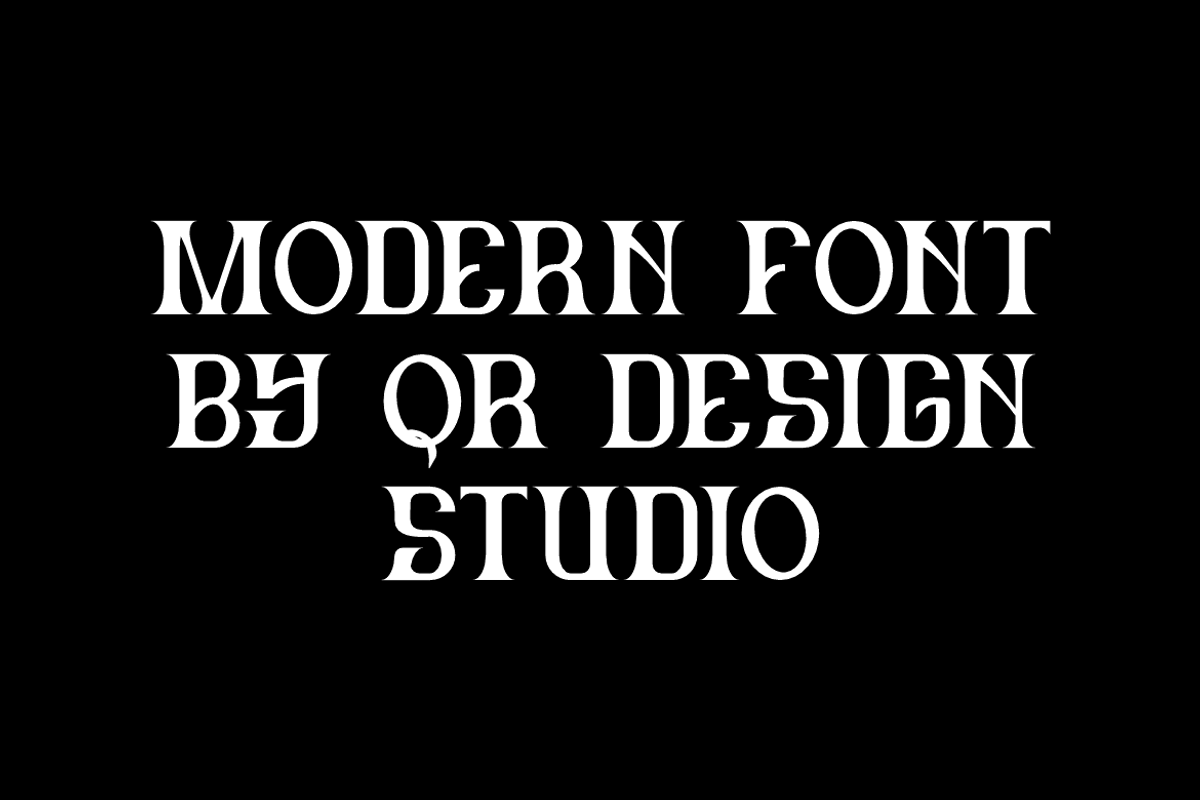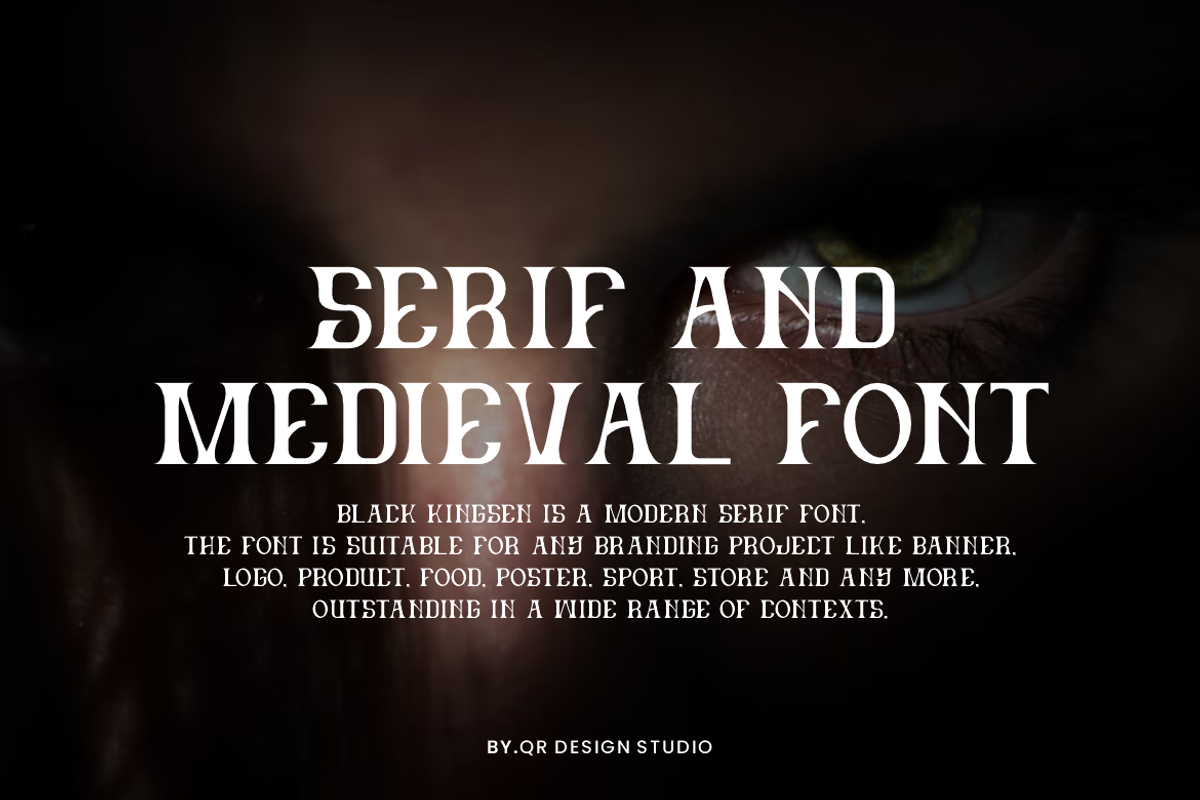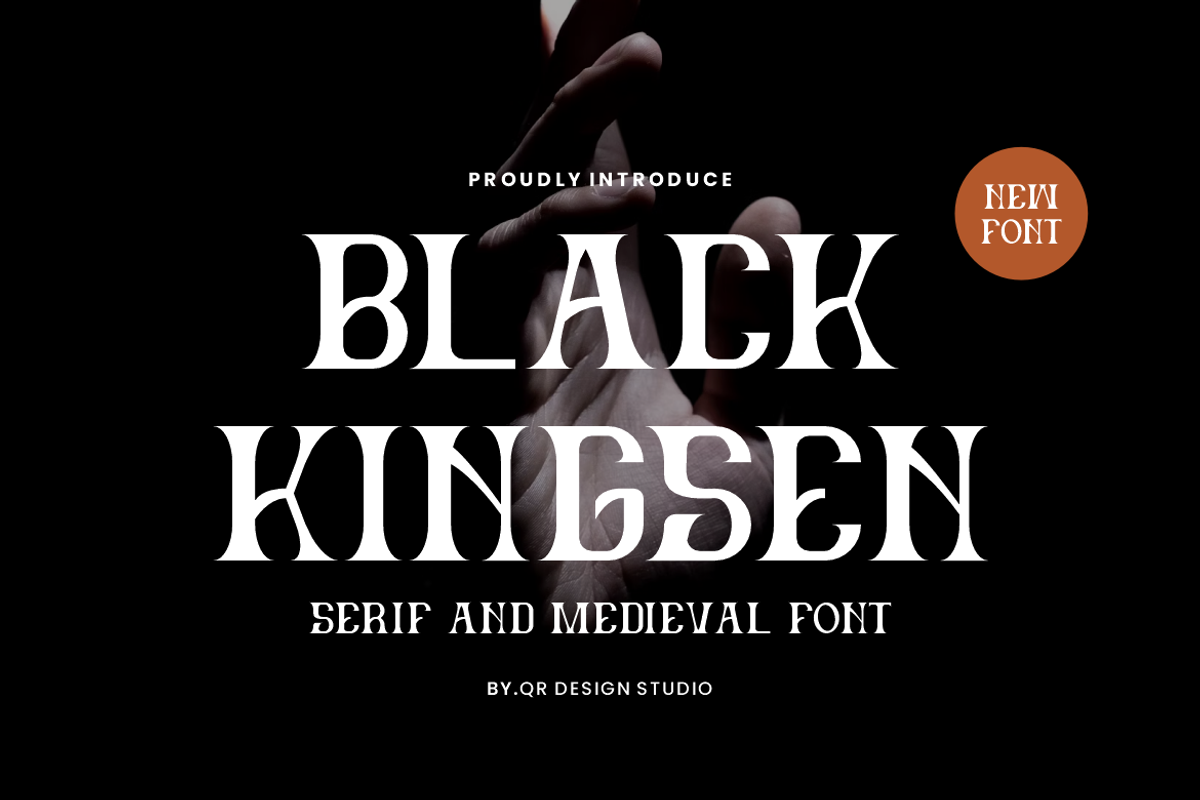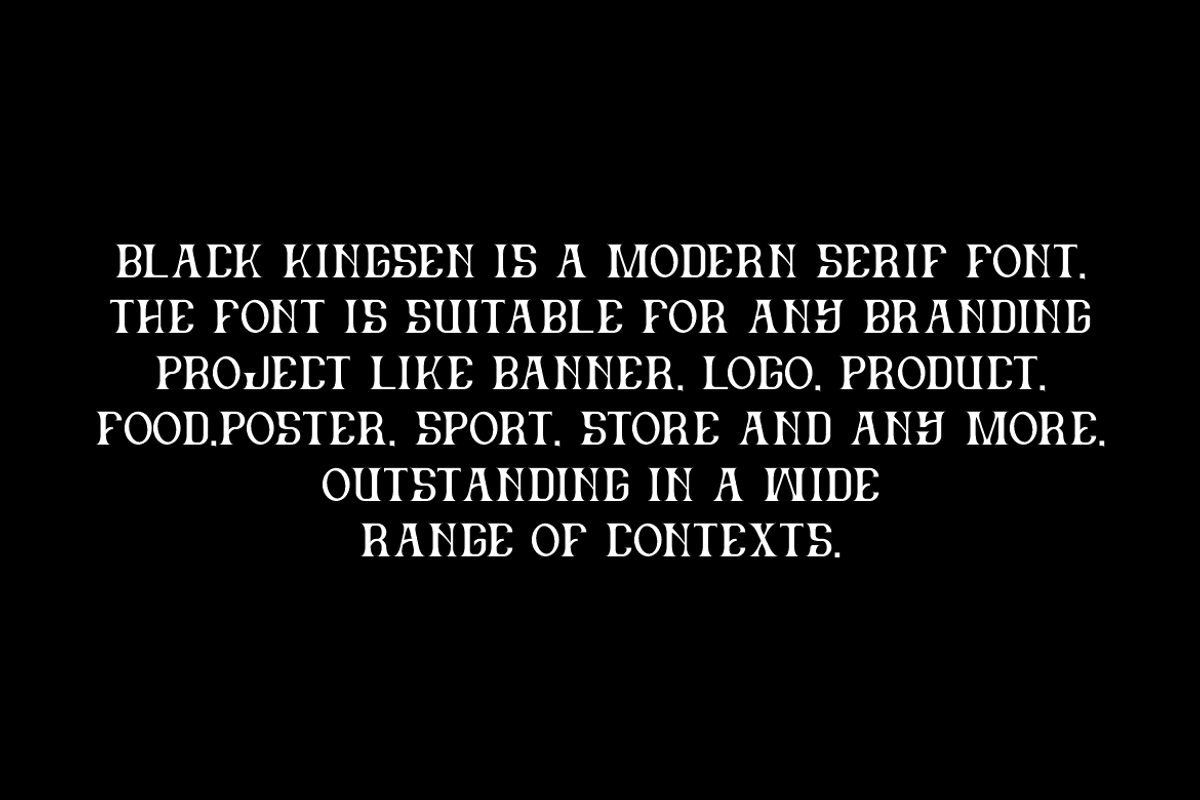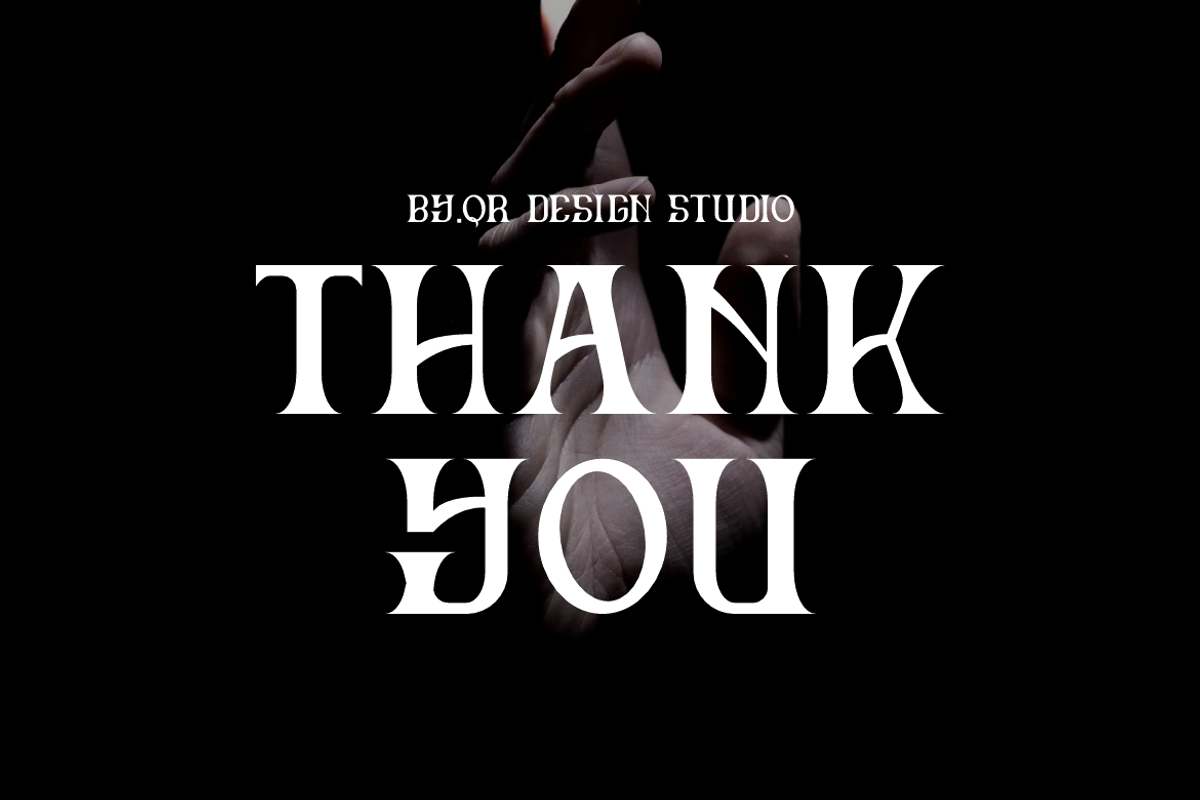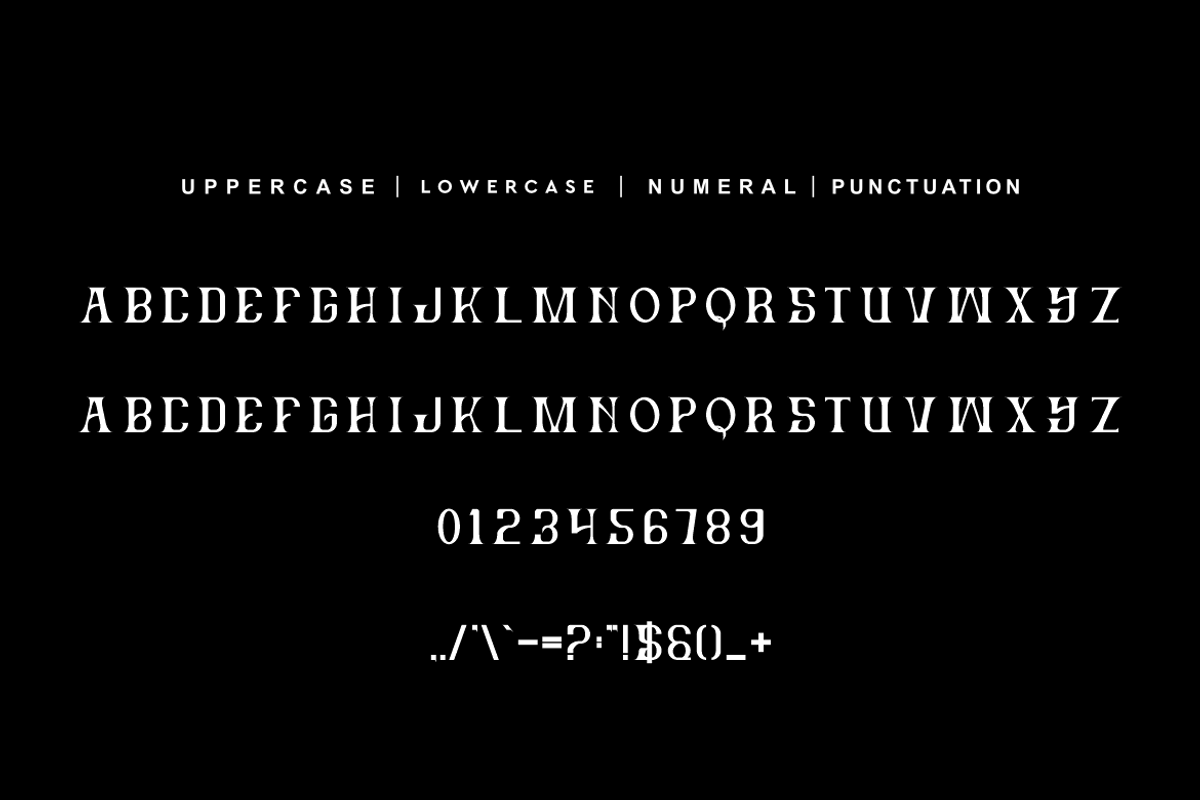
Black Kingsen Serif & Medieval Font
Black Kingsen Font is a serif and authentic display font. The font is suitable for any branding project like poster, logo, sport, and many more. Outstanding in a wide range of contexts.